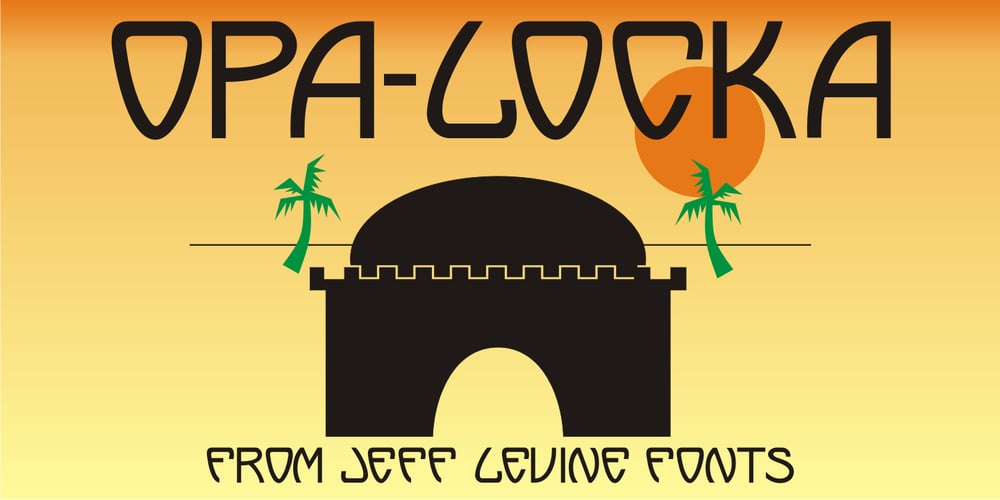
Opa-locka JNL Font Family was designed by Jeff Levine and published by Jeff Levine. Opa-locka JNL contains 1 styles and family package options. Opa-locka JNL is named for a city in Miami-Dade County, Florida and is based on an Art Nouveau-era bit of hand lettering found on vintage sheet music. Legendary aviation pioneer Glenn Curtiss (who successfully developed the city of Miami Springs and the city of Hialeah with James Bright) began the development of Opa-locka around 1925 as a planned community with a “1001 Arabian Nights” theme. Plans for this exclusive community included a country club and a small private airfield, but the hurricane of 1926 derailed Curtiss’ original vision of the city. Opa-locka gradually took shape as a residential area for middle-class families, but the closing of a long-established Marine base, changing demographics and a reputation for being a hot-spot for crime, drug abuse and corruption tarnished this once-grand community (which boasts the largest collection of Moorish Revival architecture in the Western hemisphere). Old-time Miamians bristle when the city’s name (an abbreviation of a Seminole place name, spelled Opa-tisha-wocka-locka) is mis-spelled as “Opa-Locka”, “Opa Locka” or “Opalocka”. The correct name is hyphenated, and the second part is in lower case.